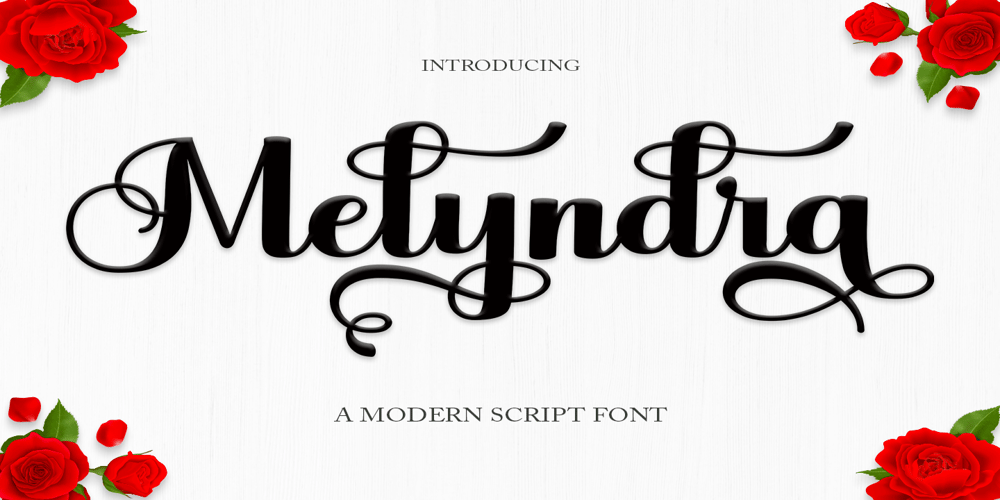
Melyndra Font Family was designed by Has Rizal and published by Hrz Studio. Melyndra contains 1 styles and family package options. Melyndra Script is a modern calligraphy font, including regular, italic and extras featuring a sleek and neat glyph. This font has a beautiful and balanced character, making it suitable for various purposes. such as written posters, wedding invitations, logos, product packaging, branding, titles, signs, labels, mugs, book covers, quotes, and others.Melyndra Script features alternative OpenType styles, ligatures, and Various International for most Western languages. To enable the alternative OpenType Stylistic, you support programs that support OpenType features such as Adobe Illustrator CS, Adobe Indesign & CorelDraw X6-X7, Microsoft Word 2010 or later.This font is PUA encoded which means you can access all glyphs and swashes with ease!Happy designing!